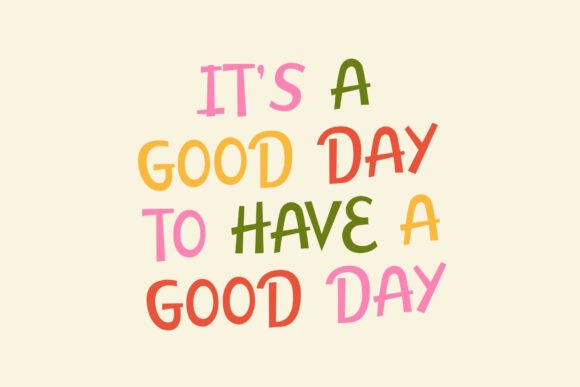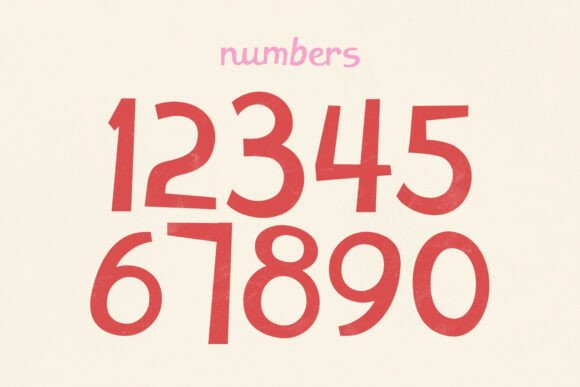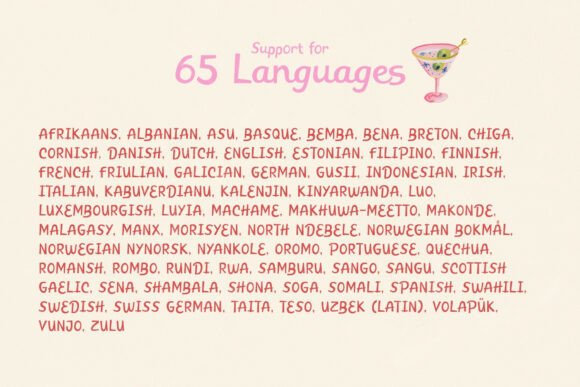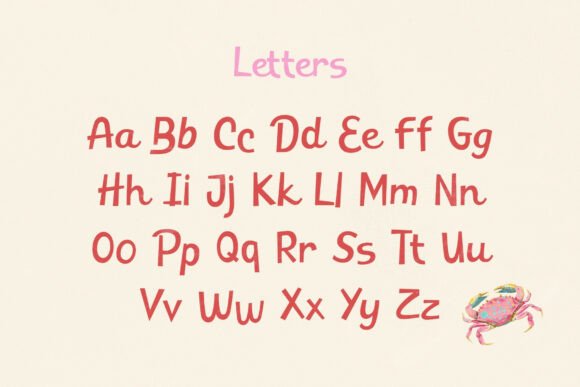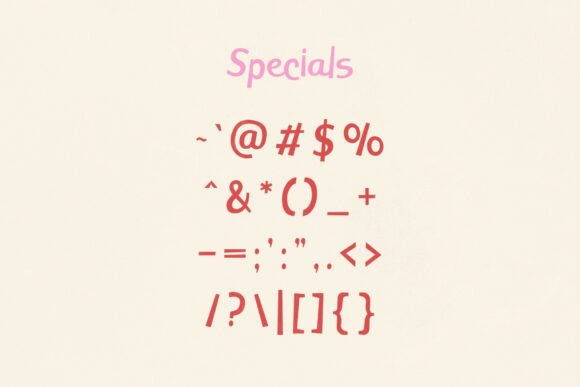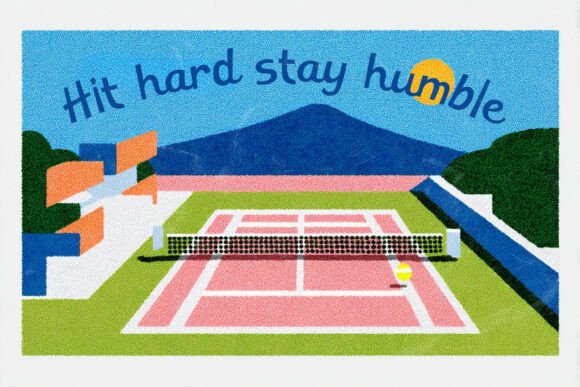
Introduction to Expressa Font
Expressa Script is a fun, whimsical, and playful modern script font designed to bring energy and personality into every project.
With its bold weight and smooth flowing strokes, it strikes the perfect balance between casual handwriting and confident visual impact Crafted for versatility, Expressa Script delivers expressive letterforms that feel warm, dynamic, and full of life.
Key Features of Expressa Font